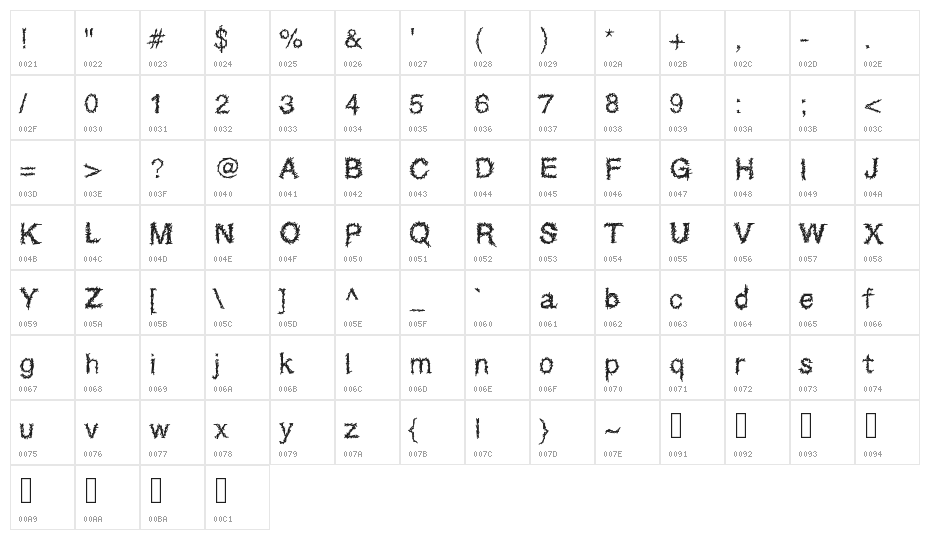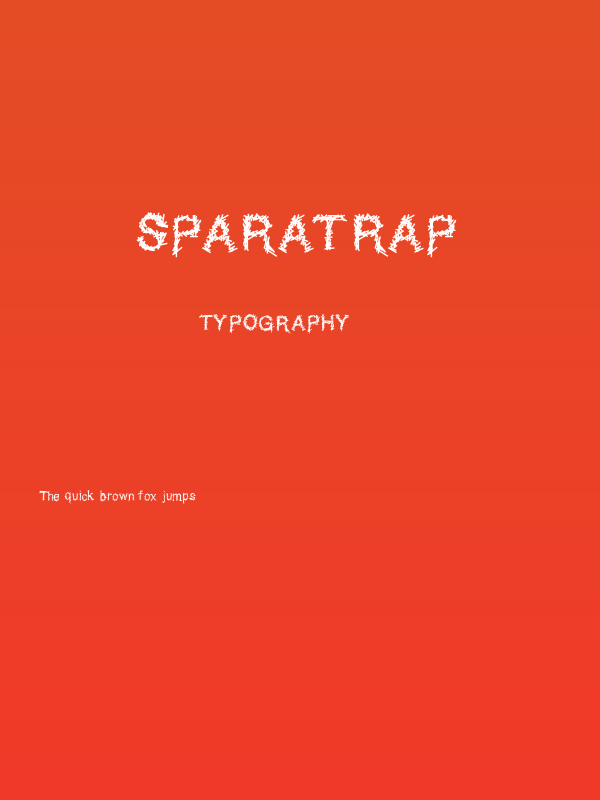
Sparatrap Font
Sparatrap Description
This font features a unique, jagged design that resembles barbed wire or thorns, giving it a rugged and edgy appearance. The characters are irregular and sharp, with uneven edges that create a sense of movement and chaos. This style is particularly eye-catching and can be used to convey a sense of danger or rebellion. The uppercase and lowercase letters maintain a consistent style, while the numerals and special characters follow the same jagged theme, ensuring uniformity across all text. This font is ideal for projects that require a bold statement or a gritty, raw aesthetic.
Overall StyleEdgy, Rebellious, Rugged
Use CaseLogos, Posters, Headlines
Proposed ProjectsAlbum covers, horror movie posters, extreme sports branding, rebellious fashion labels.